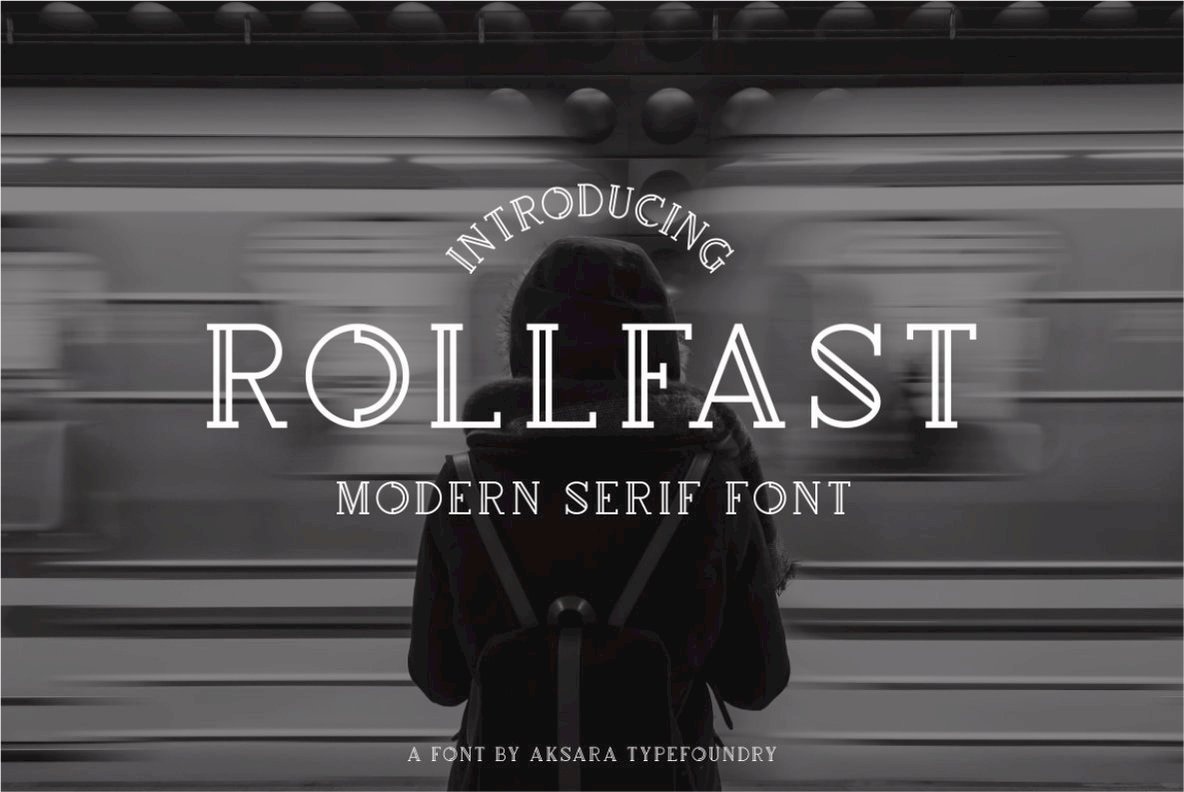
Rollfast Font
Rollfast Font is perfect for automotive racing branding, high-speed transportation marketing, motorcycle dealership materials, fast delivery service communications, speed-focused fitness campaigns, racing event promotions, dynamic sports branding, and velocity-driven lifestyle designs.
What makes Rollfast Font exciting is its dynamically fast character that captures the exhilarating rush and unstoppable momentum of high-speed movement through aerodynamically-inspired letterforms that seem to blur with velocity and forward motion. The font features streamlined shapes with speed-oriented details that evoke the precision engineering and lightning-fast reflexes required for high-performance racing and rapid transit. Its kinetic aesthetic and velocity appeal make it perfect for brands that want to communicate speed, efficiency, and the adrenaline-fueled excitement that comes with pushing the limits of acceleration while creating memorable experiences that celebrate the pure thrill of velocity and the engineering excellence that makes extreme speed possible.
Rollfast Font family includes various high-speed weights such as Light, Regular, Medium, and Bold variations, often featuring velocity-inspired alternates and racing decorative elements. The family may include speed symbols, racing ornaments, and kinetic ligatures that enhance the font's fast aesthetic, providing designers with comprehensive options for creating dynamic typographic compositions that capture the essence of high-speed performance and racing excellence.
This dynamically fast typeface has gained recognition among automotive brands and speed-focused businesses seeking authentic velocity typography solutions that reflect racing values and high-performance culture. Rollfast Font Free Download provides an excellent opportunity to accelerate with this fast font before investment. The font's character set includes speed symbols and racing-inspired glyphs that work perfectly for automotive and transportation industry applications. Whether you're designing for racing teams, automotive manufacturers, or high-speed delivery services, Rollfast Font delivers the velocity your project demands. Its versatile nature makes it suitable for various speed applications including motorcycle clubs, racing circuits, fast food brands, and velocity-focused lifestyle companies, ensuring your typography choices communicate unstoppable speed and racing excellence while creating memorable brand experiences that celebrate the pure exhilaration of velocity and the precision engineering that makes extreme speed achievable through its distinctively fast and authentically racing-inspired visual character.